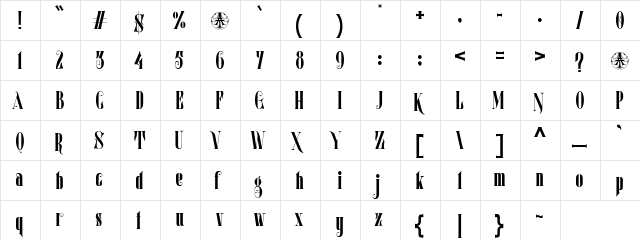
Mostfear Regular
Design Context for Mostfear Typeface
Mostfear is a composed and adaptable typeface that performs quietly and consistently across a wide range of design contexts.